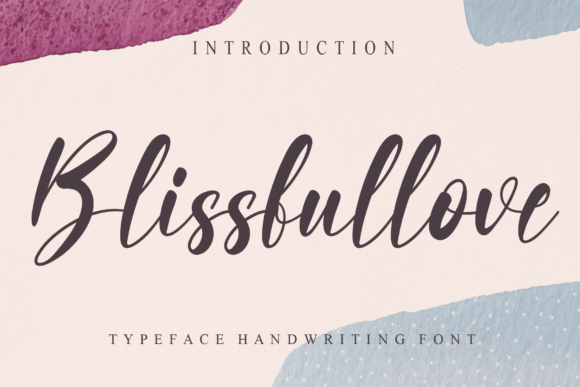
Ignite your designs with the captivating Blissfullove font, a script masterpiece crafted by Misterletter.co. Its enchanting handwritten style exudes a friendly and approachable charm that will infuse your creations with a touch of warmth and authenticity.
Blissfullove's flexibility and neat execution make it the perfect choice for a wide range of design projects. Its elegant curves and playful strokes add a touch of whimsy and personality to logos, branding, invitations, social media posts, and anything else you can dream up.
Experience the endless possibilities of Blissfullove and let your imagination run wild. Whether you're a seasoned designer or just starting out, this font is sure to become a go-to in your creative toolkit. Its intuitive nature makes it easy to use, while its stunning results will leave you and your audience spellbound.
Step into the world of Blissfullove and discover a font that will transform your designs, captivate your audience, and leave a lasting impression. Its friendly charm and endless versatility will make it a beloved addition to your font collection, adding a touch of delight to every project you undertake.
Embrace the beauty of Blissfullove and let your creativity flourish. Its handwritten elegance will add a personal touch to your designs, making them stand out from the crowd. Its versatility and ease of use make it the perfect choice for both personal and professional projects, ensuring that your creations always make a lasting impact.